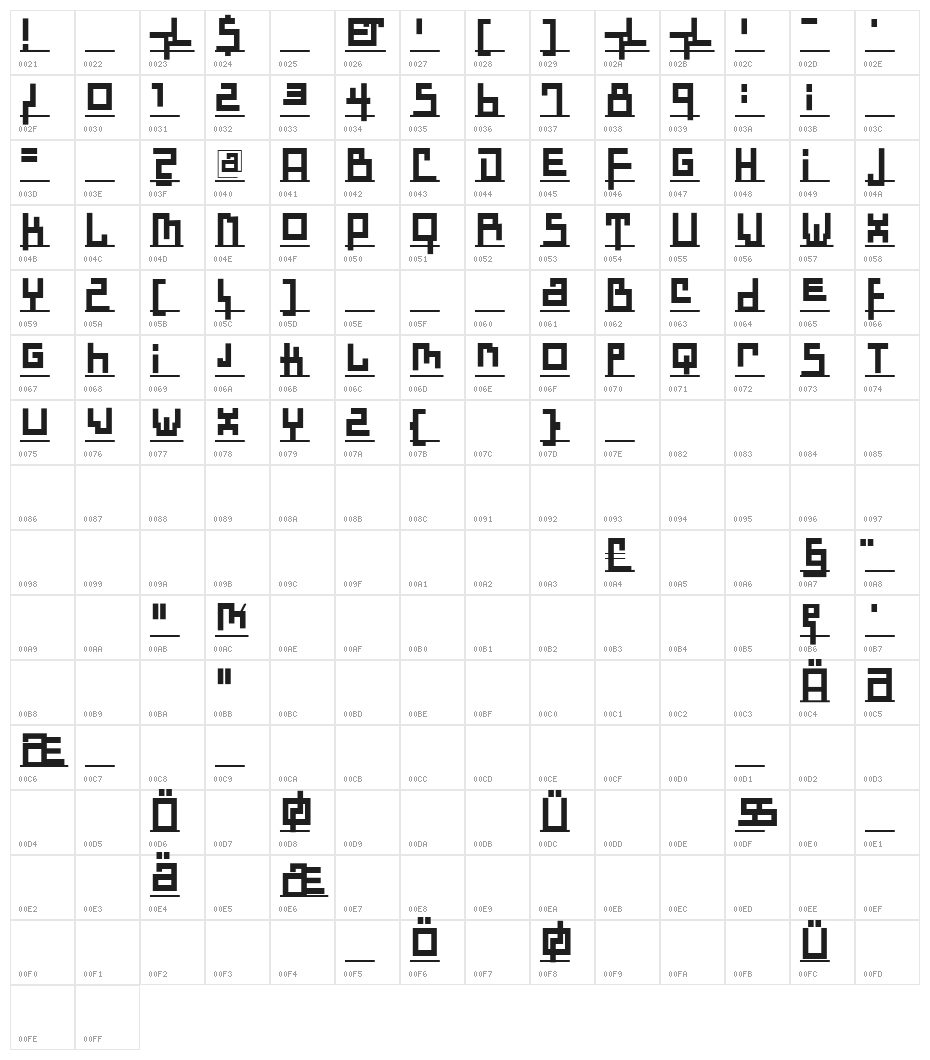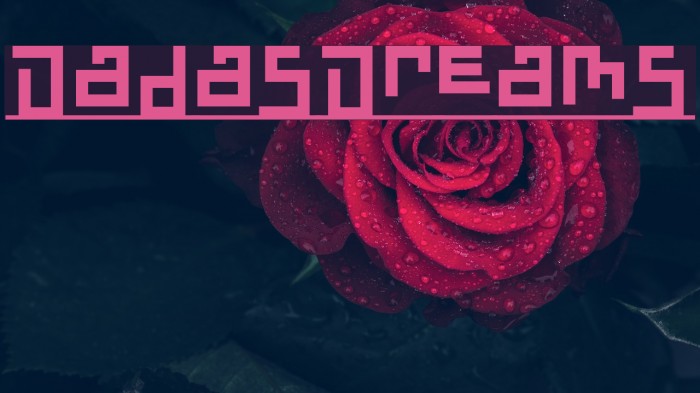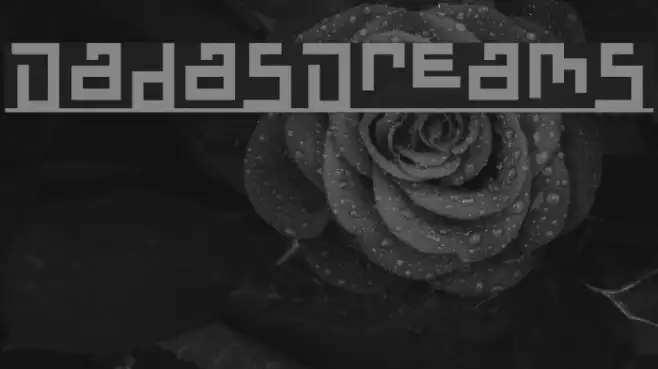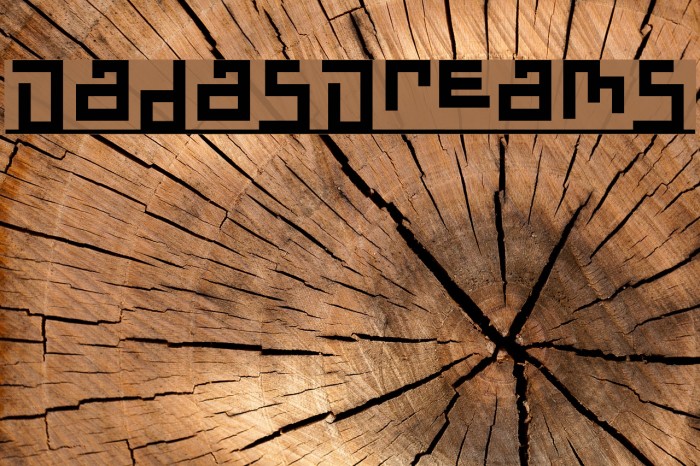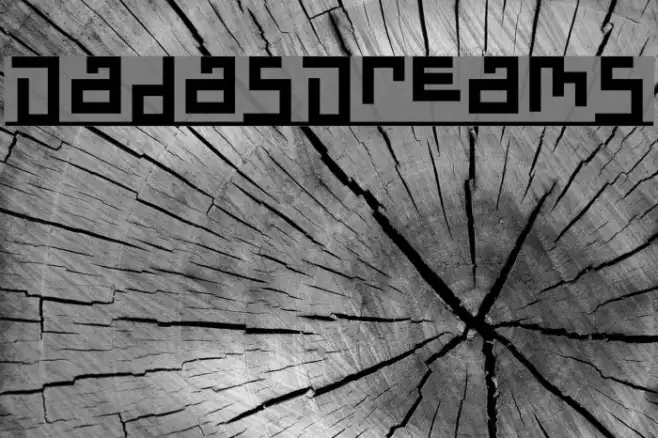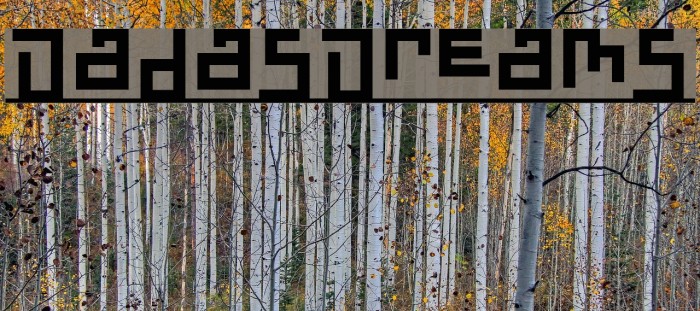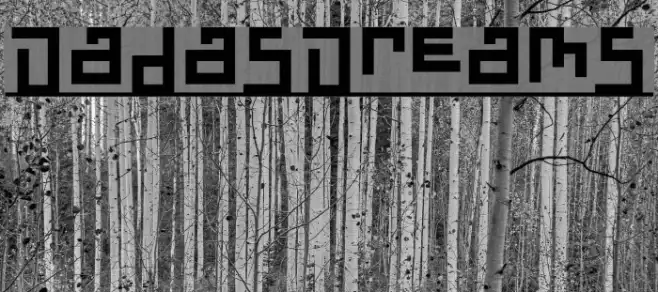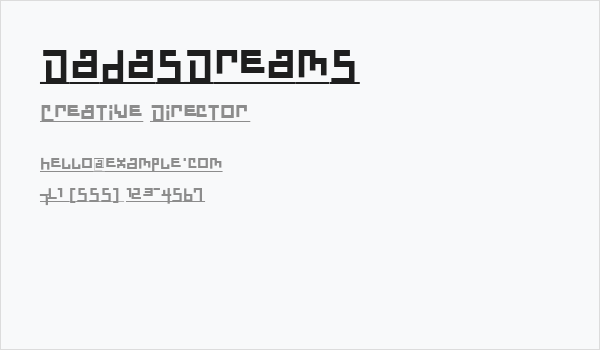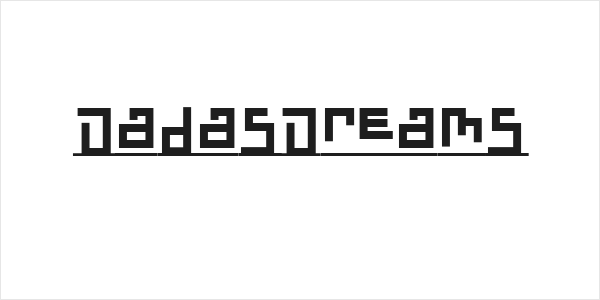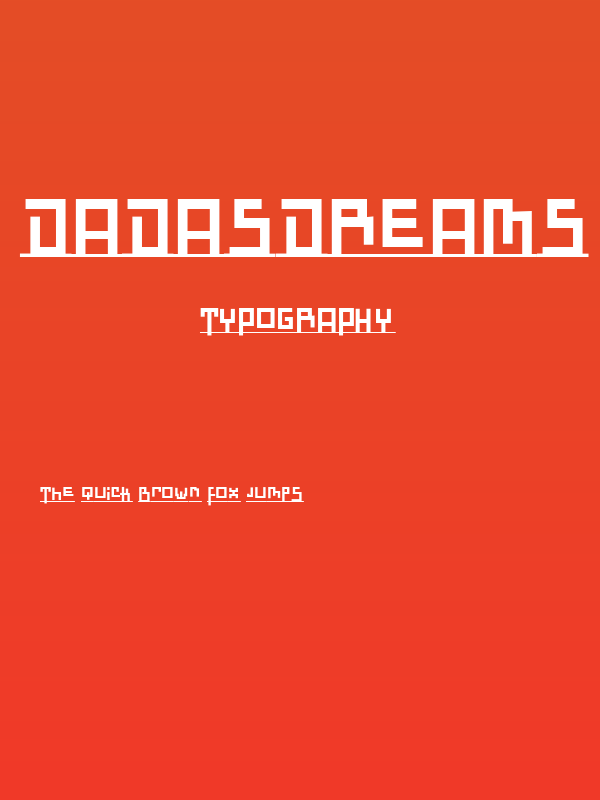
DadasDreams Font
This font features a bold, geometric design with a strong emphasis on straight lines and right angles. Each character is constructed with a consistent stroke width, giving it a uniform and cohesive appearance. The uppercase and lowercase letters share a similar structure, enhancing the font's modern and futuristic aesthetic. The numerals and special characters maintain the same design principles, ensuring a seamless integration across all text elements. The overall style is reminiscent of digital or pixel art, making it ideal for projects that require a tech-savvy or avant-garde look.
| Use Case | Logos, Headlines, Digital interfaces |
| Proposed Projects | Ideal for tech-related branding, digital art projects, video game interfaces, and futuristic-themed designs. |